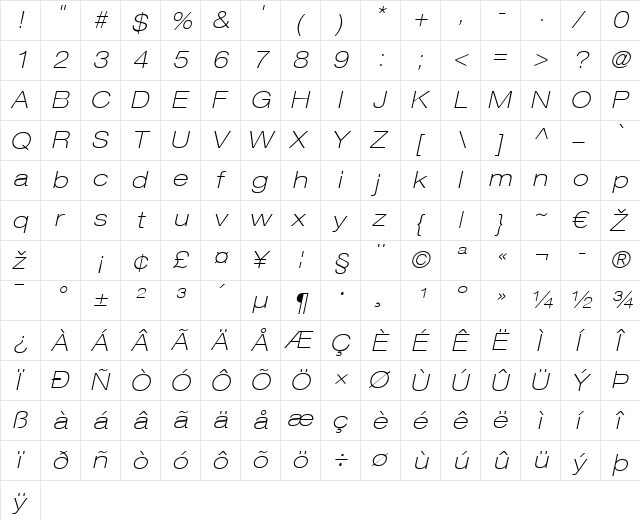
HelveticaNeue LT 33 ThinExObl Regular
Design Context for HelveticaNeue LT 33 ThinExObl Typeface
HelveticaNeue LT 33 ThinExObl is a composed and adaptable typeface that performs quietly and consistently across a wide range of design contexts. The delicate stroke weight brings airiness and refinement to layouts.
Pro Tip: Pair HelveticaNeue LT 33 ThinExObl with a font of contrasting weight or personality to build a more expressive typographic hierarchy.